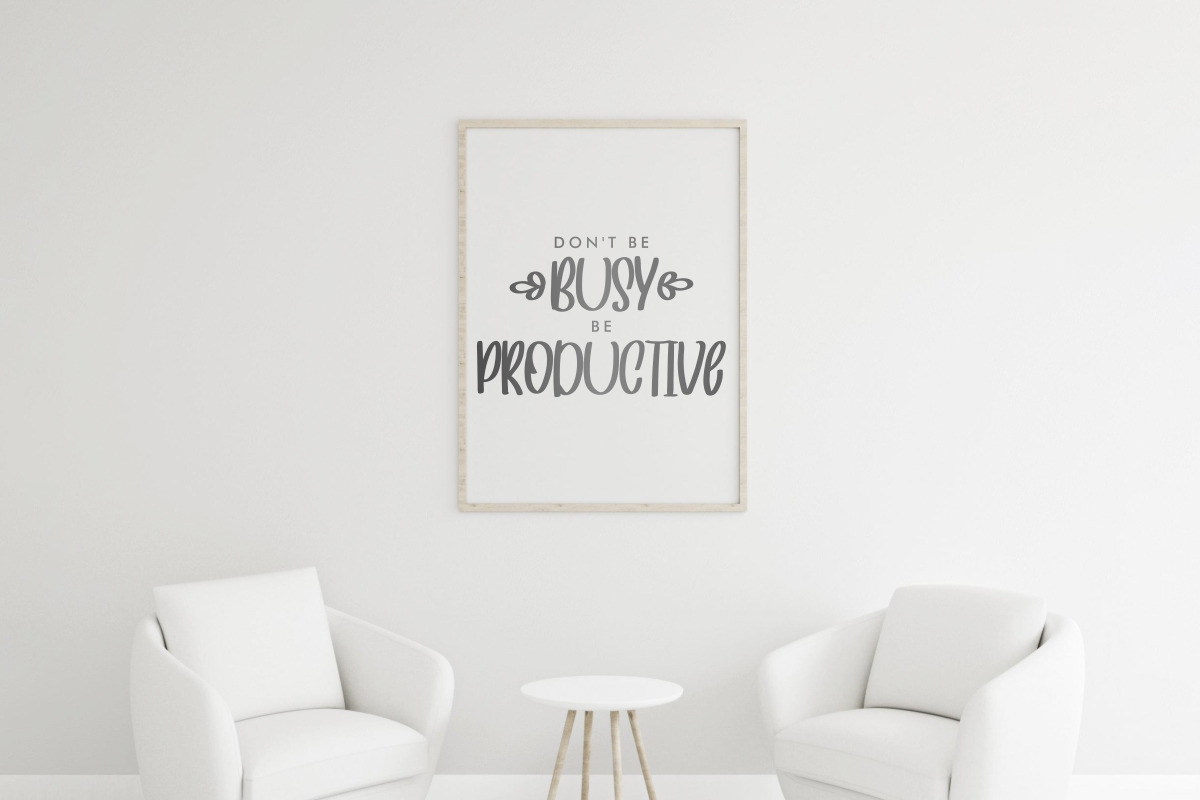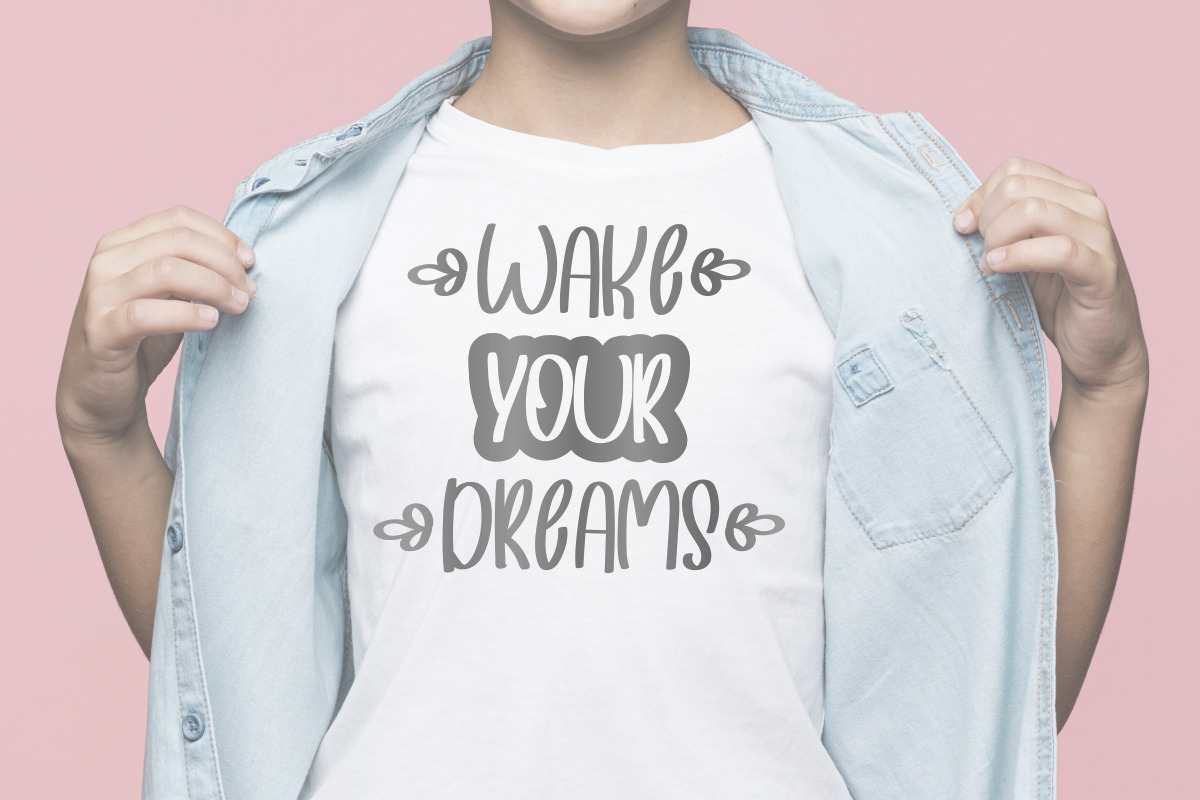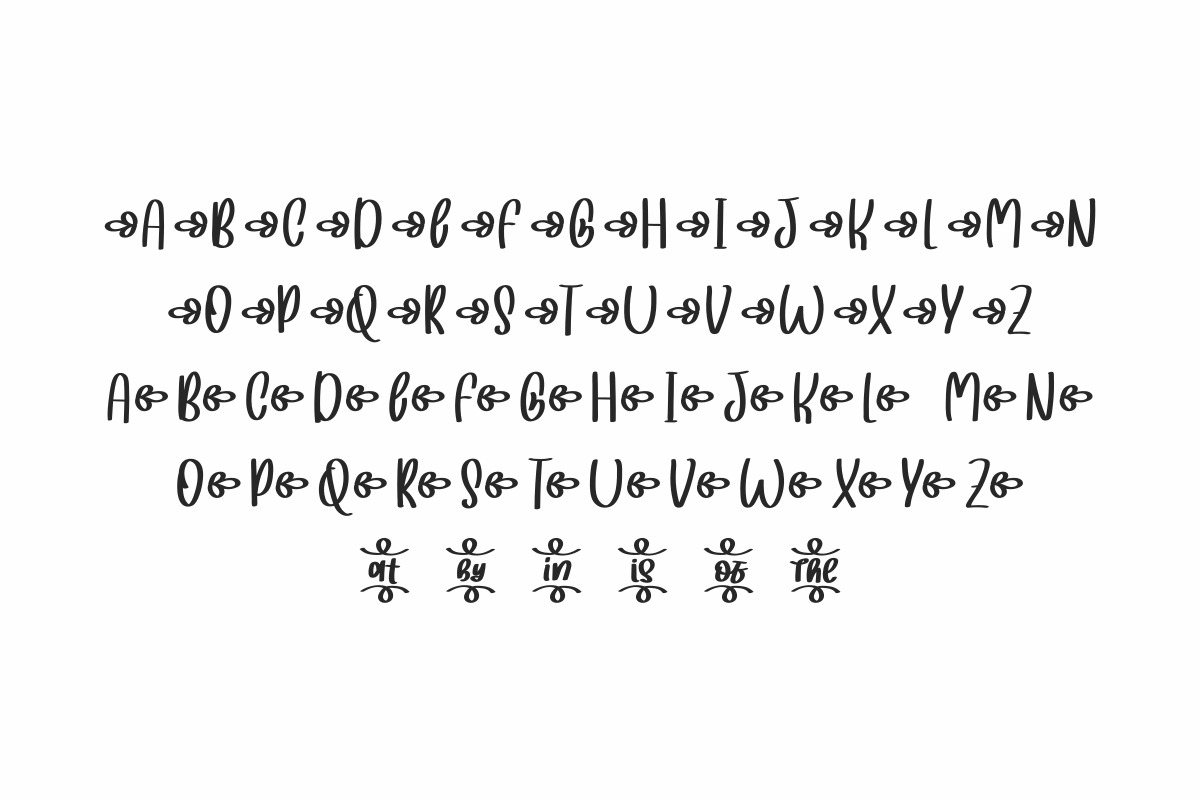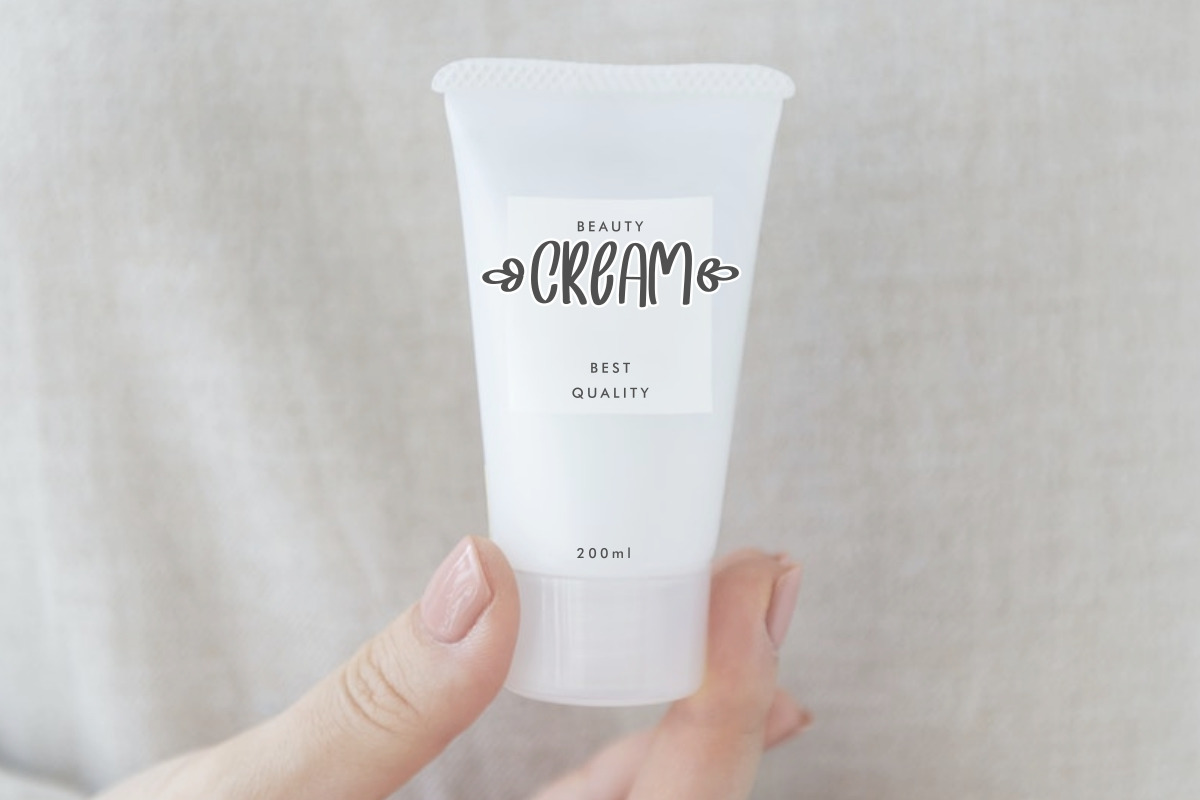
SWEETISH Font
SWEETISH Font is a font duo font famliy with four different styles. Originally made by NihStudio Font Designers : Saepul and Sarah. On the package you will get :
Handcrafted here in our Studio , Indonesia. SWEETISH will be great for any projects (require extended license) including : branding, logo, stationery, business card, signage, flyer, brochure etc.
The SWEETISH has two styles : Regular and Inline style